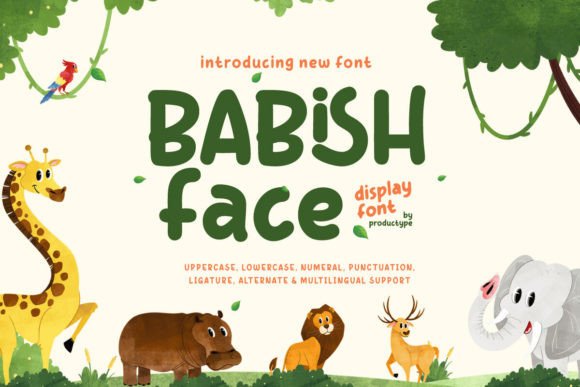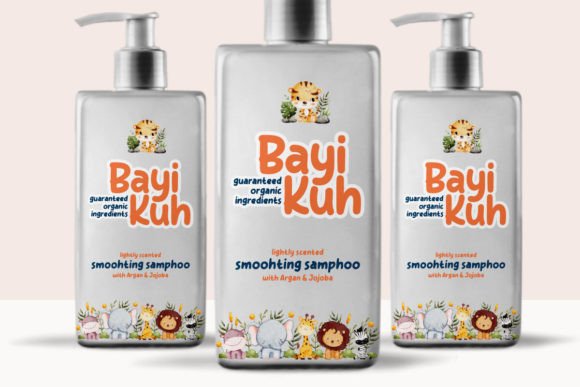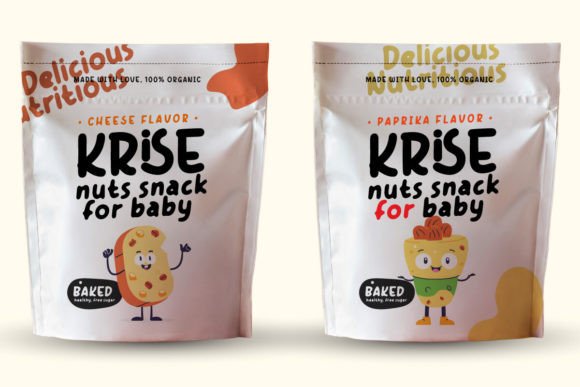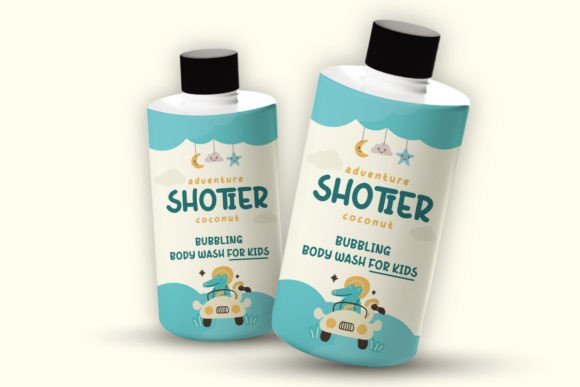
Babish Face Font: A Cute Display Font for Playful Branding
About the Babish Face Font
Explore the possibilities with Babish Face Font, a font that offers both beauty and functionality. “Welcome to a world of fun with **Babish Face**, a display font that combines a fun touch and an interesting aesthetic. Designed to liven up the atmosphere with cute and friendly characters, Babish Face is the perfect choice for a variety of creative projects that require captivating visual appeal.
**Main feature:**
– **Two Families:** Babish Face comes with two unique family variants:
– **Regular:** Clean, easy-to-read format, ideal for the main text, titles, and content that requires high readability.
– **Alternate:** More abstract and experimental shapes, perfect for adding an artistic and dynamic touch to your designs.
**Utility:**
– **Child-Friendly Design:** Ideal for children’s books, toys, educational products, and everything related to the world of children.
– **Branding & Packaging:** Suitable for food packaging, organic products, and items that require a friendly and inviting appearance.
– **Event Promotions:** Add a fun feel to event posters, party invitations, and thematic decorations.
– **Digital Content:** Make digital content such as social media, blogs, and websites more interesting and lively.
With **Babish Face**, each letter plays a role in conveying a message of happiness and cheerfulness. Whether you’re designing something simple or trying to create an out-of-the-box design, Babish Face provides incredible flexibility and visual appeal. Make Babish Face part of your design toolkit and let its visual magic enhance each of your projects.
Babish Face Font Usage Examples
Babish Face Font Example